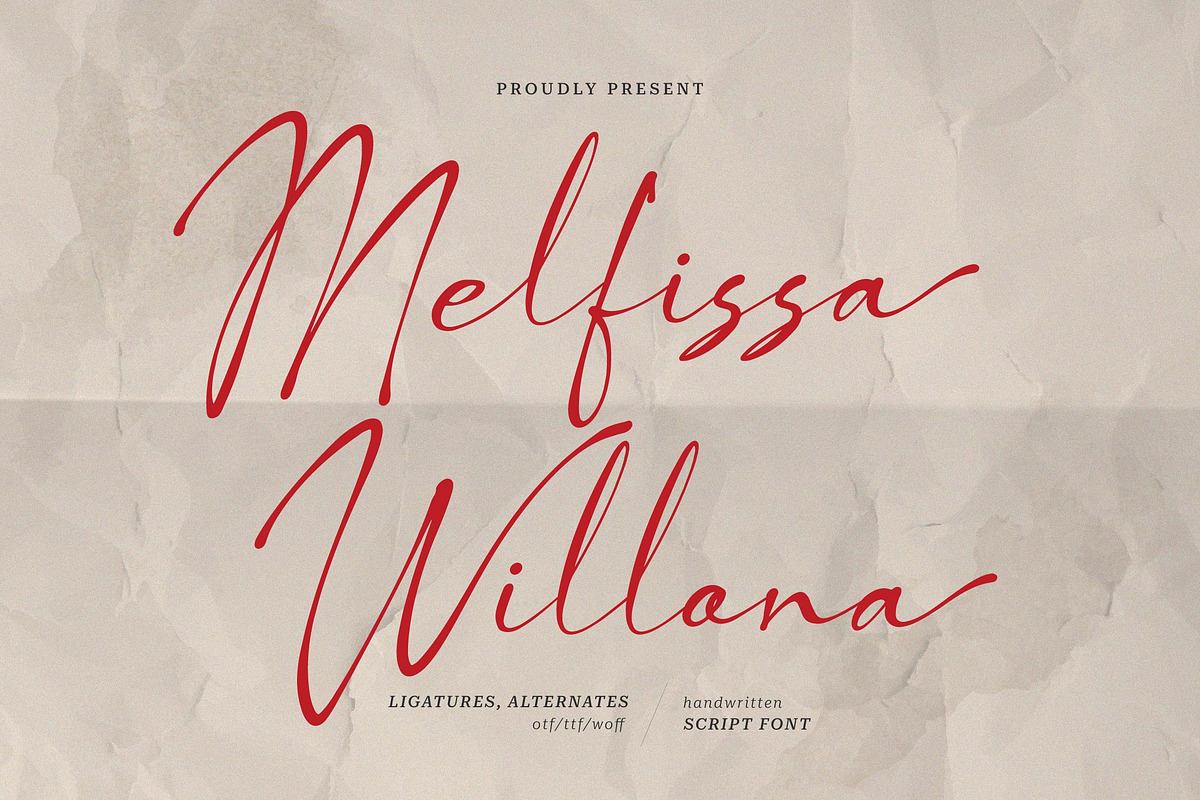
Melfissa Willona | Casual Chic Font Free Download
Please note, you must purchase this font for commercial use. However, you can easily download Melfissa Willona | Casual Chic Font Free Download for personal use and testing purposes. Melfissa Willona | Casual Chic Font is a stylish and modern typeface that blends casual elegance with a chic flair. Perfect for fashion blogs, branding, social media graphics, and invitations, this font adds a sophisticated yet laid-back vibe to your designs. Its smooth, flowing lines and contemporary style make Melfissa Willona | Casual Chic Font Free Download an excellent choice for creating memorable, stylish typography. Whether you’re designing a logo, a website, or promotional materials, this font will help you convey a sense of relaxed luxury and modern sophistication. Download Melfissa Willona | Casual Chic Font Free Download today and explore its potential before purchasing a commercial license.